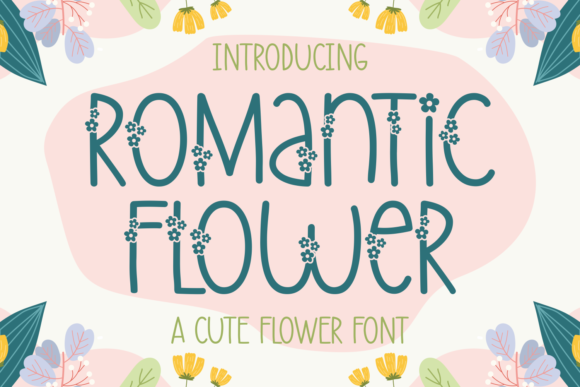
Welcome to the world of Romantic Flower Font, a captivating display font family that'll ignite your creativity and leave you spellbound. Designed by the talented Dani of 7NTypes, this font is not just a collection of letters and symbols; it's an artistic masterpiece that will transform your words into enchanting works of art.
With its intricate floral motifs adorning each character, Romantic Flower Font is a symbol of elegance and beauty. Each letter is meticulously crafted to resemble a delicate flower, with petals that dance and sway as if carried by a gentle breeze. This font is an invitation to let your imagination soar and create designs that exude charm, romance, and timeless appeal.
Whether you're crafting blog post titles that demand attention, designing eye-catching social media graphics, or creating unique branding materials, Romantic Flower Font will elevate your projects to new heights. Its versatility knows no bounds, and its ability to add a touch of sophistication to any design is simply magical.
Imagine your blog post titles adorned with Romantic Flower Font, captivating your audience with their enchanting appearance. The delicate petals and intricate details will draw readers in, compelling them to delve deeper into your content. Your social media posts will blossom with charm and elegance, leaving a lasting impression on your followers. And when it comes to branding, Romantic Flower Font will create a visual identity that exudes professionalism and creativity, setting your brand apart from the ordinary.
This font is a treasure chest of possibilities, an artistic tool that will unleash your creativity and allow you to weave enchanting stories through your designs. Join the growing community of designers and content creators who have discovered the magic of Romantic Flower Font and let your imagination flourish.
So, dive in, explore this extraordinary font family, and let your designs bloom with beauty and charm. Romantic Flower Font is waiting to be your creative companion, guiding you towards design excellence.